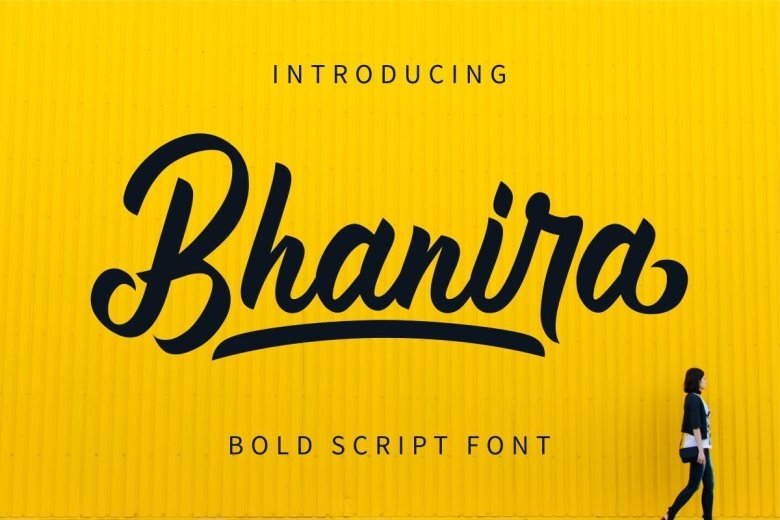
Bhanira Font
Bhanira Bold Script Font is a beautiful, flowing and retro handwritten font. It looks stunning on invitations, thank you cards, quotes, greeting cards, logos, business cards and much more! This font is PUA encoded which means you can access all of the glyphs and swashes with ease!